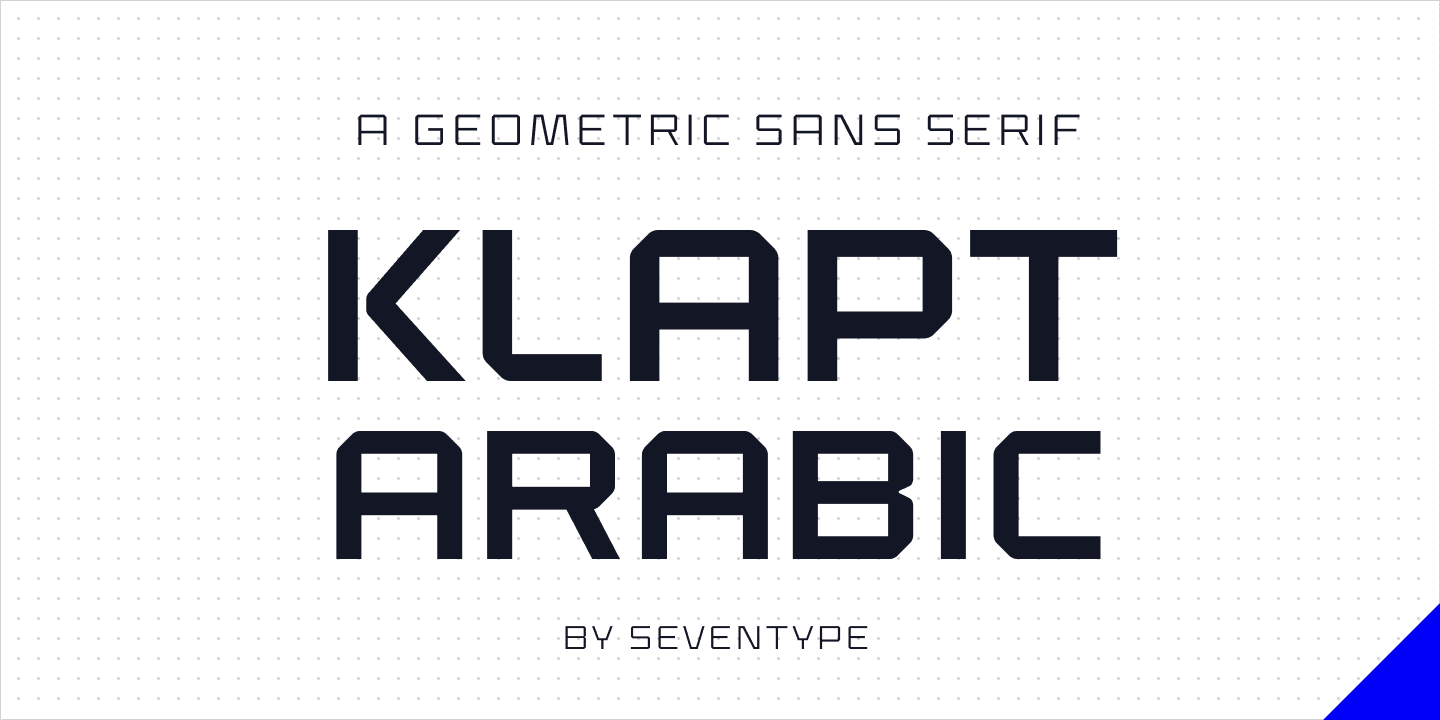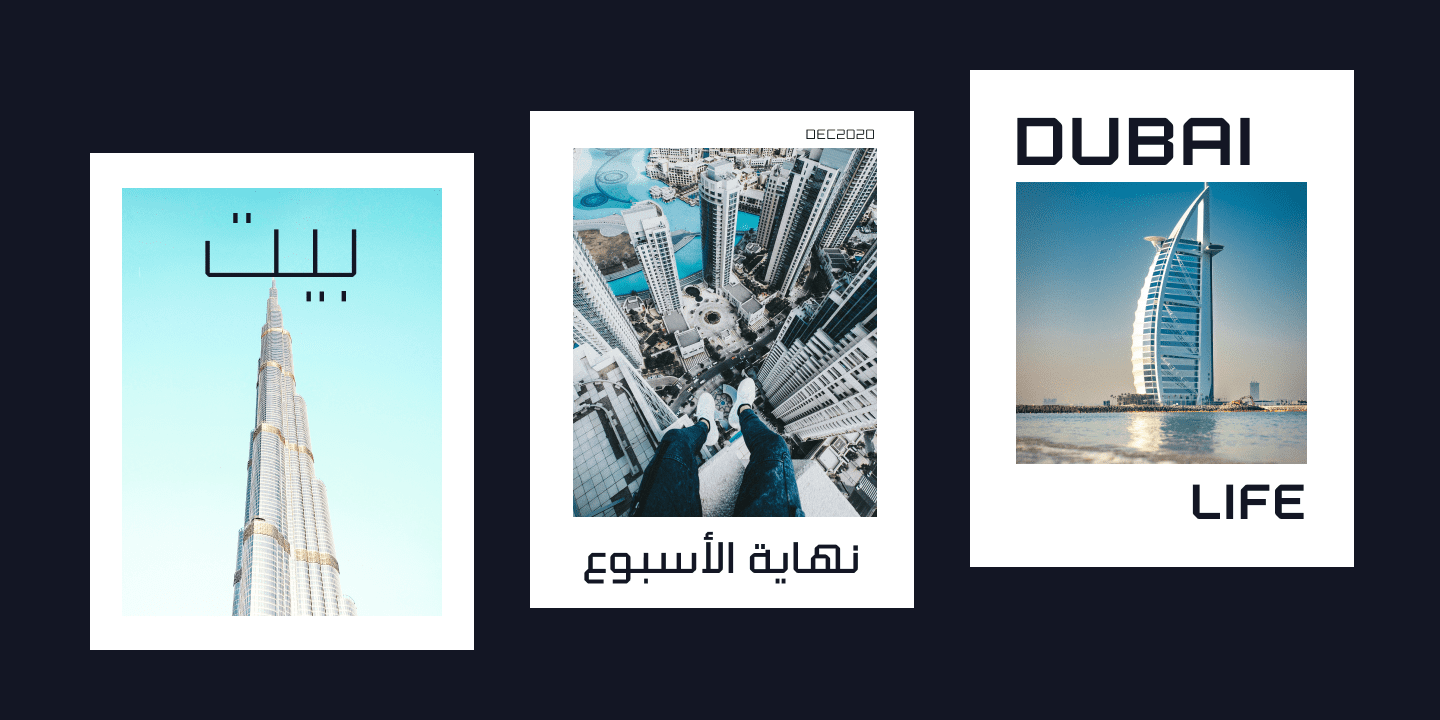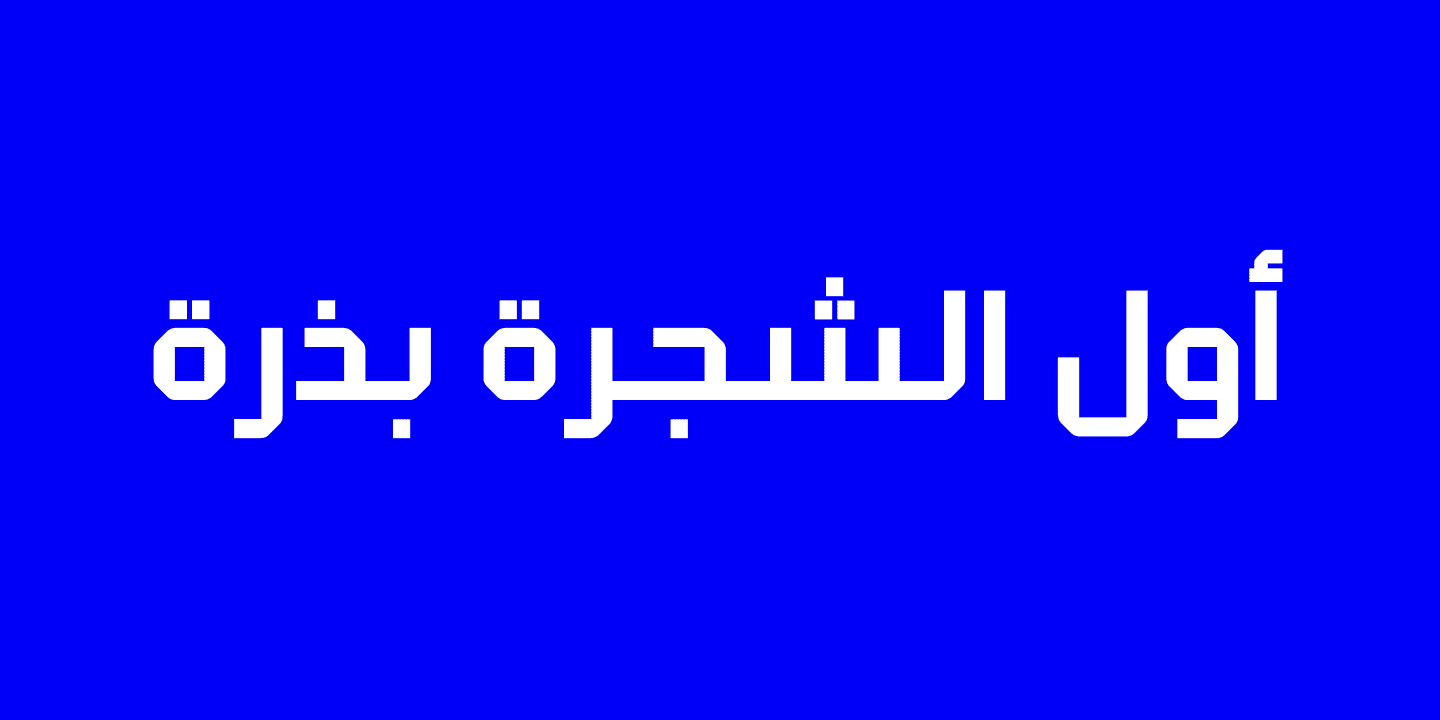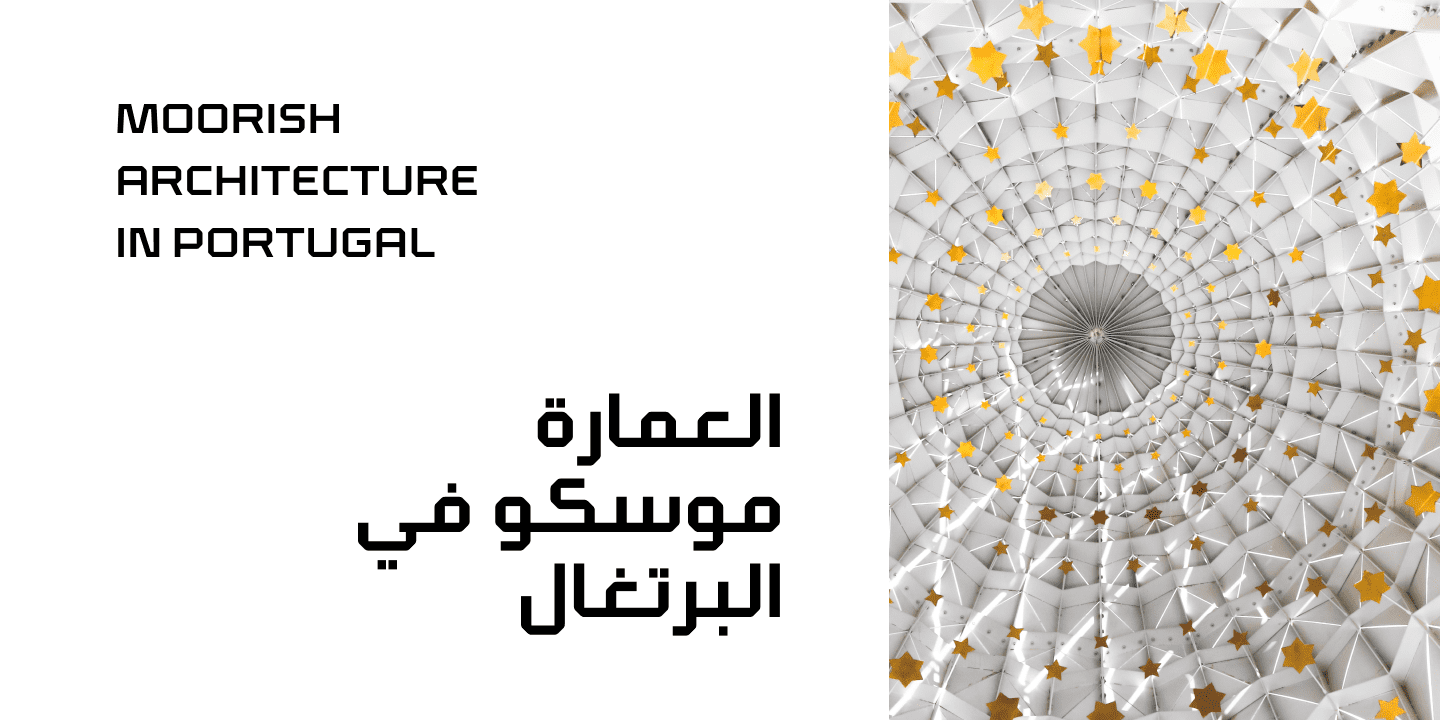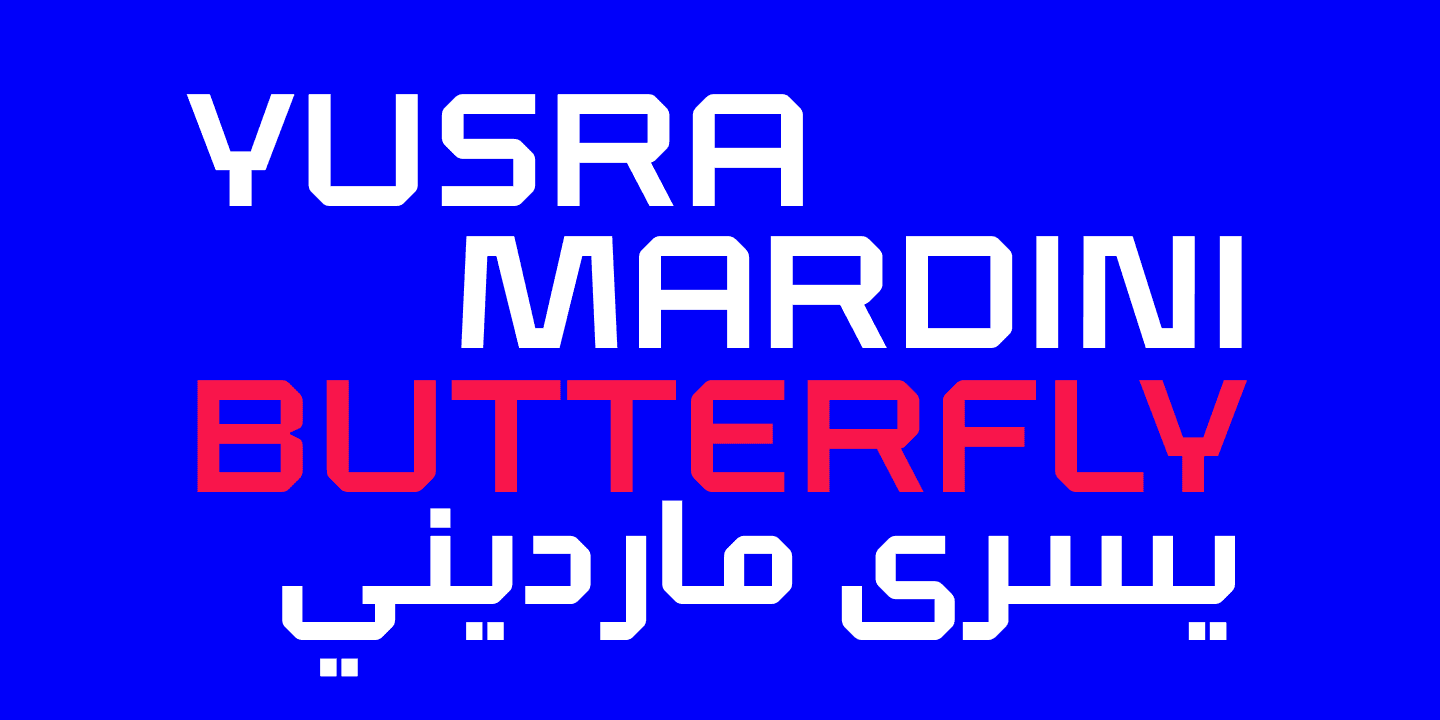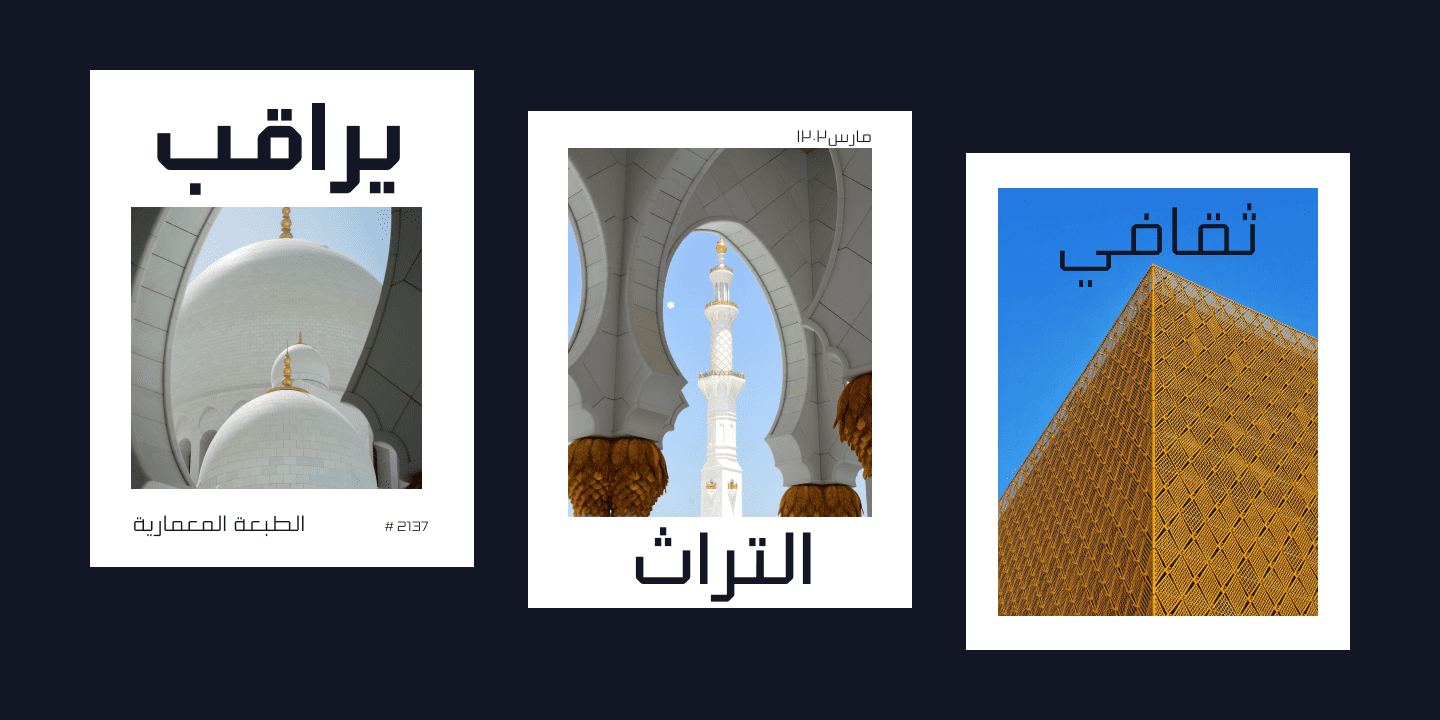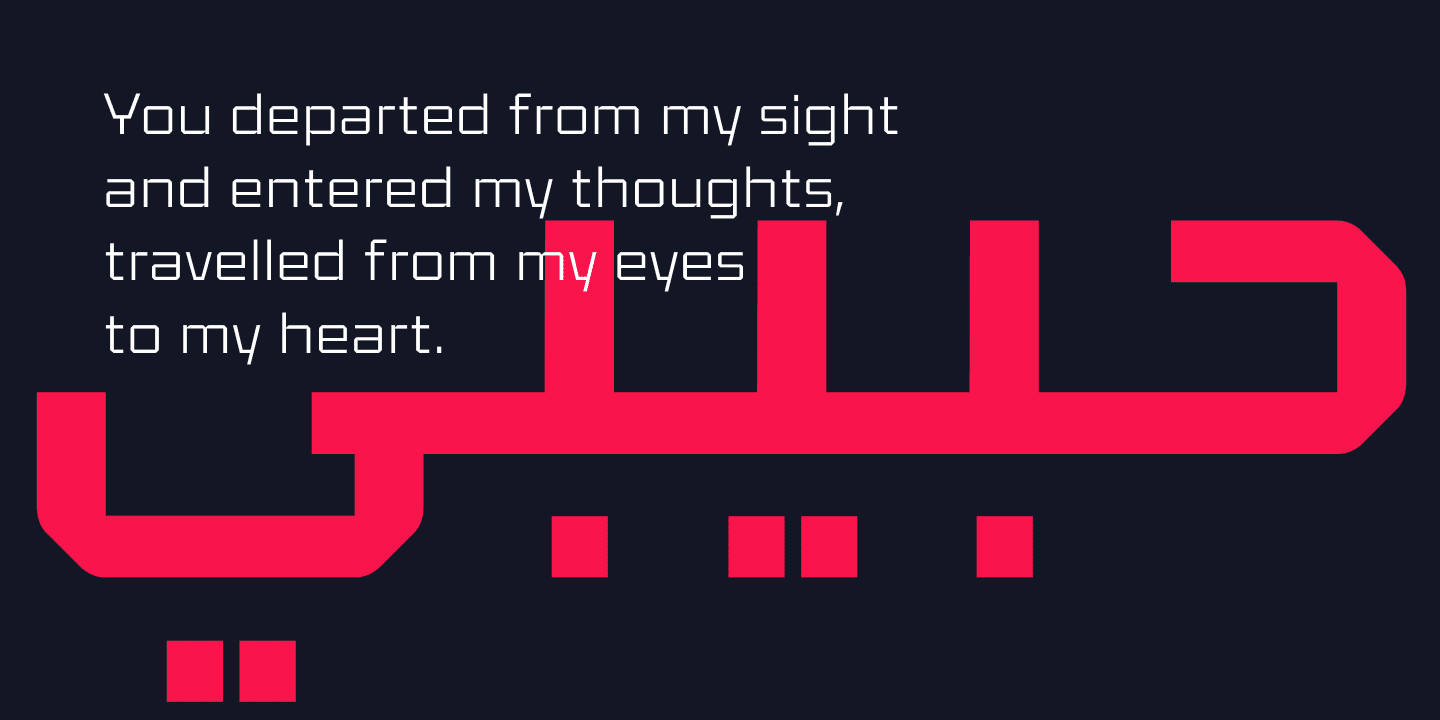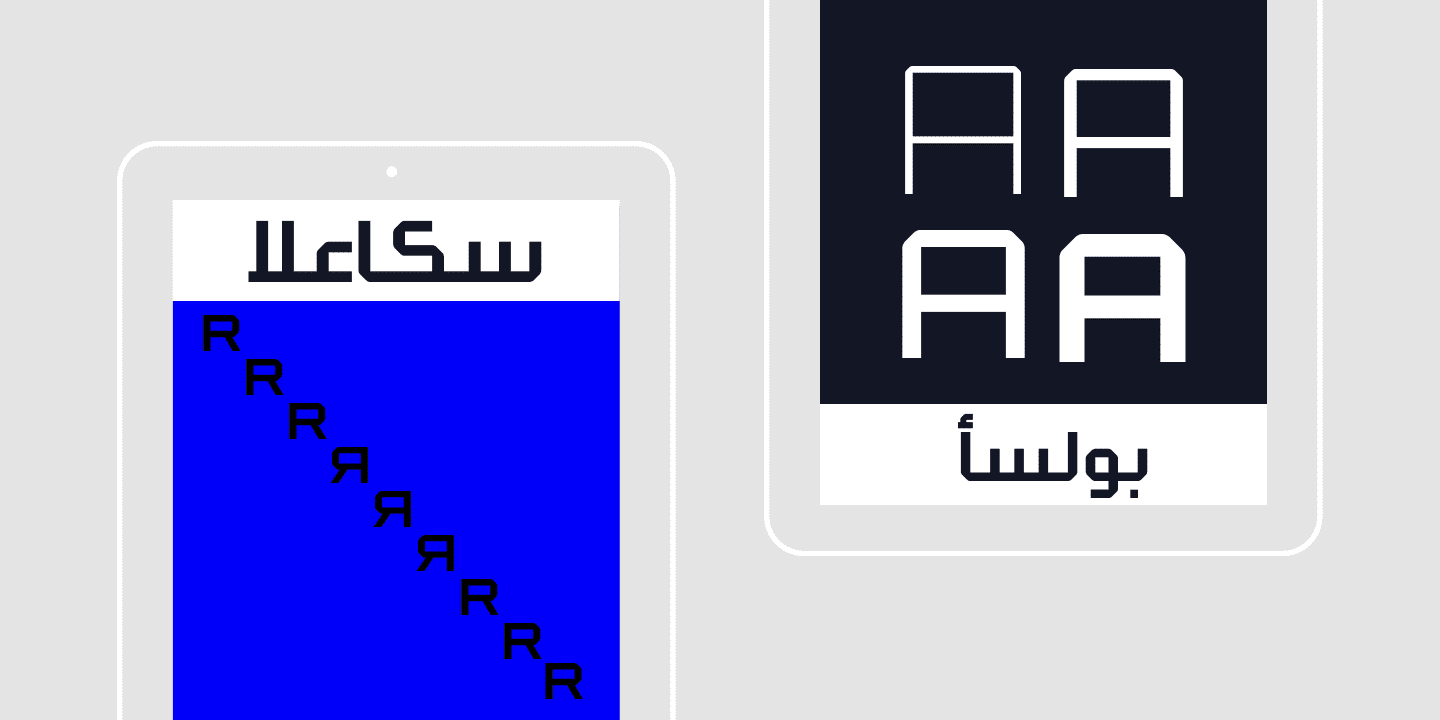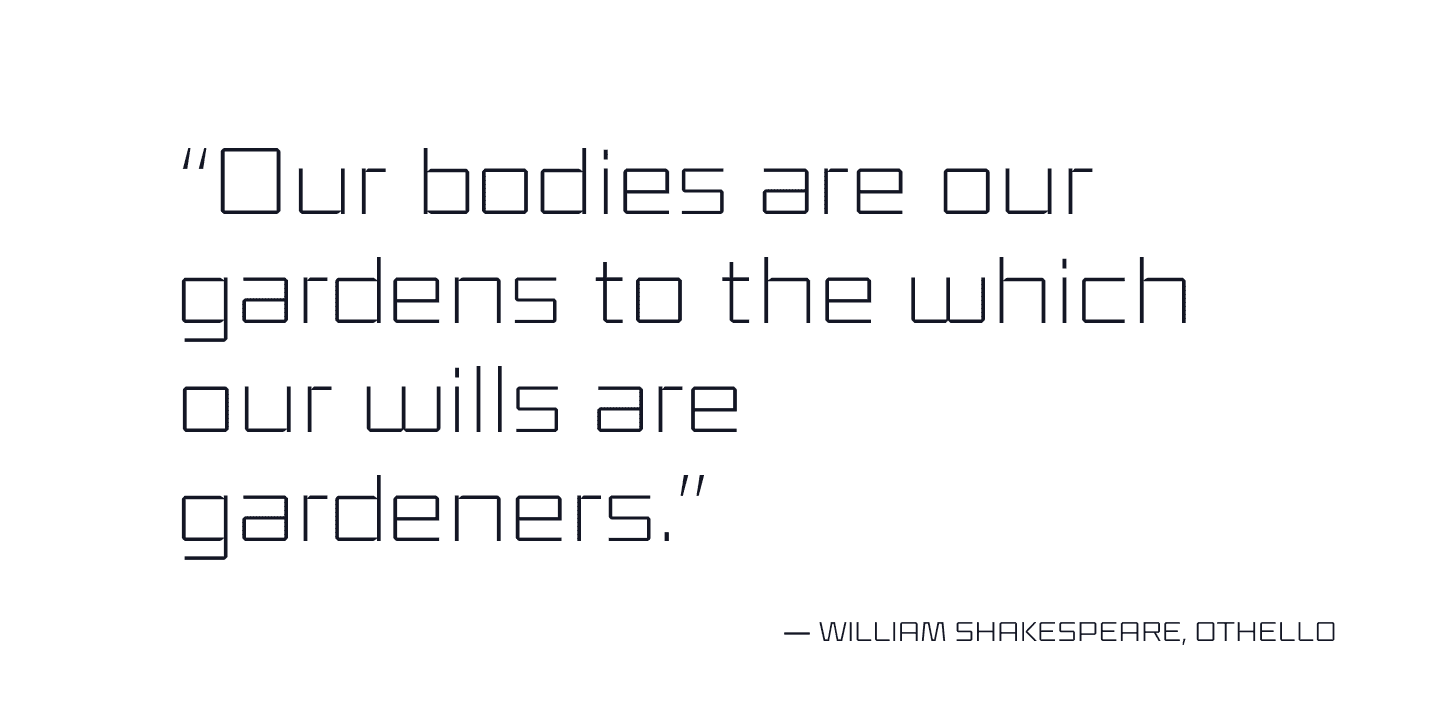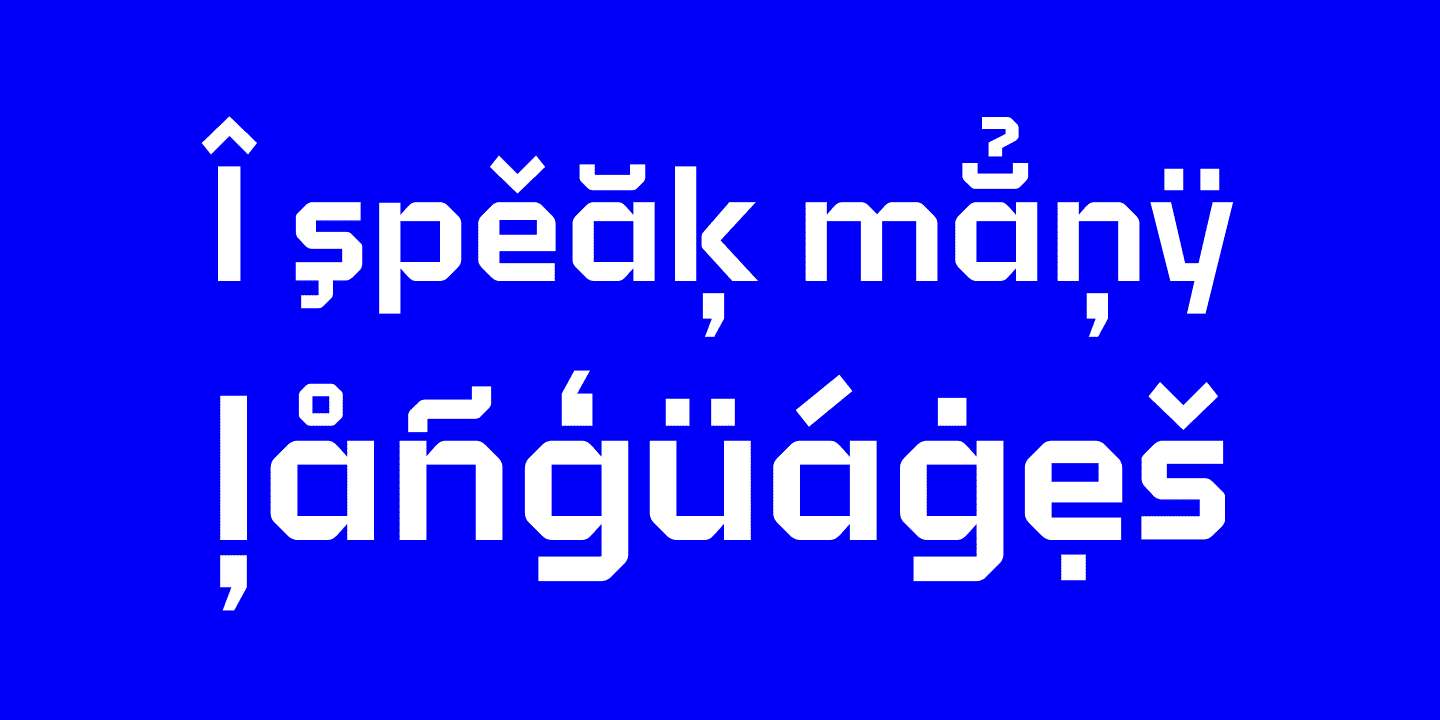
Klapt Arabic Family (4 fonts)
From Seventype Design
Klapt Arabic can be bold or very elegant and is well suited for designs ranging from branding and corporate identity to editorial design or web design. It has a timeless style and is great for display purposes, especially for headlines, posters, magazines, book covers, logos... you name it!
This font family of four weights includes an extended character set supporting most Latin languages ?and extended Arabic, including Persian and Urdu.
Klapt Arabic is the extension of Klapt https://www.fonthaus.com/fonts/SeventypeDesign/Klapt/SEV000025.